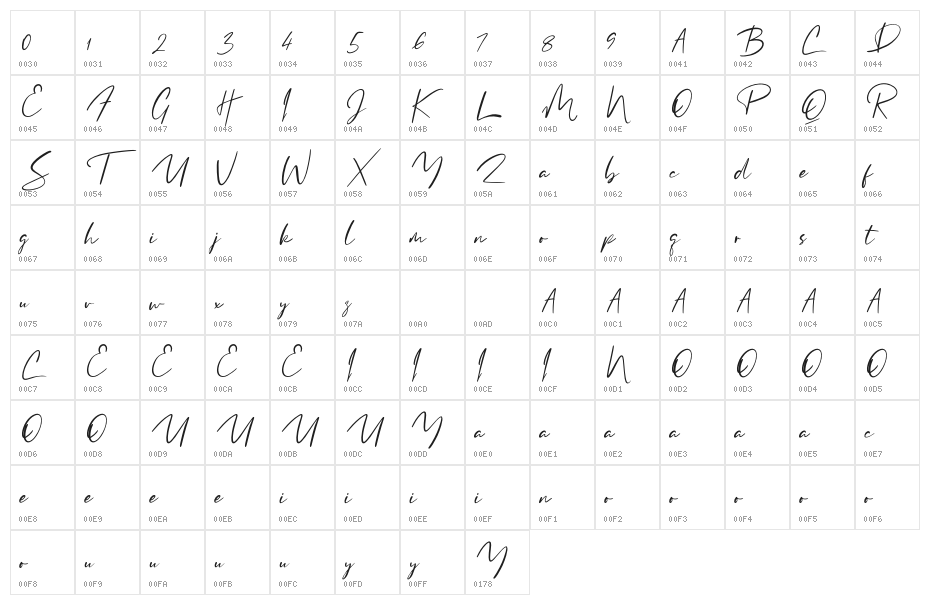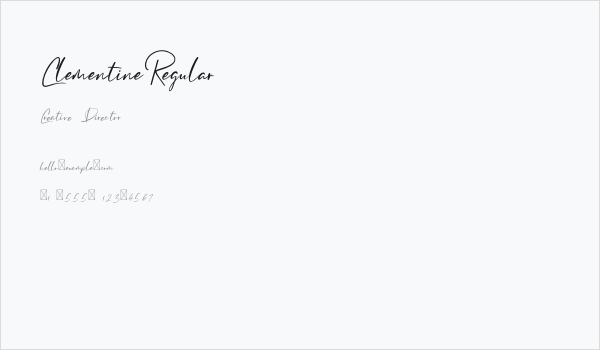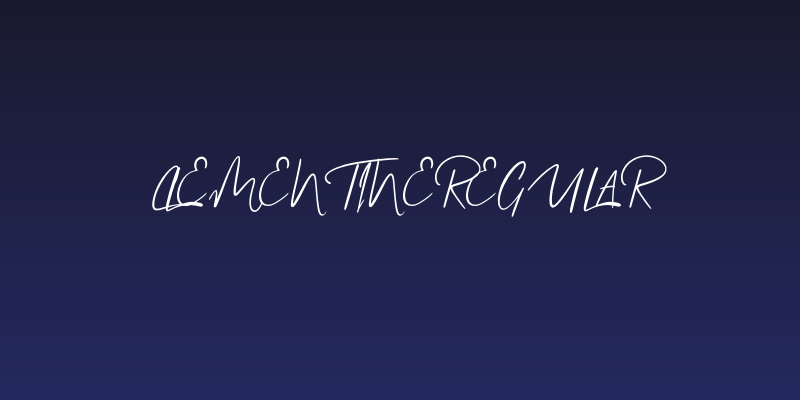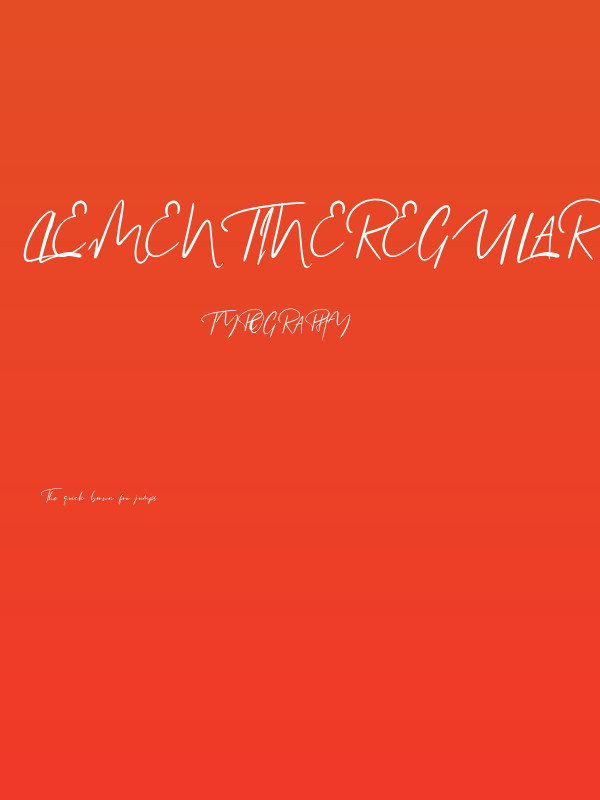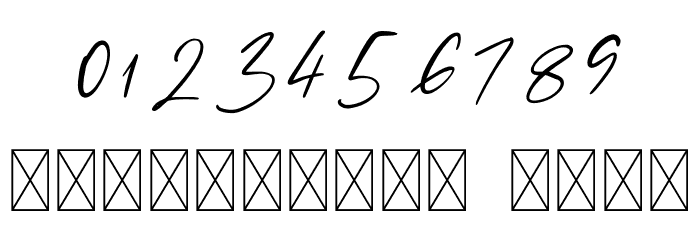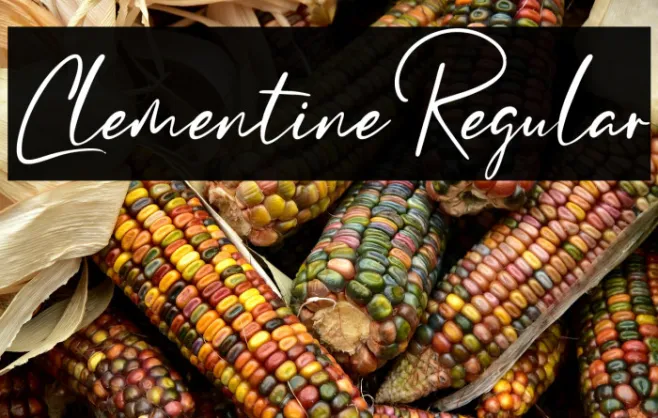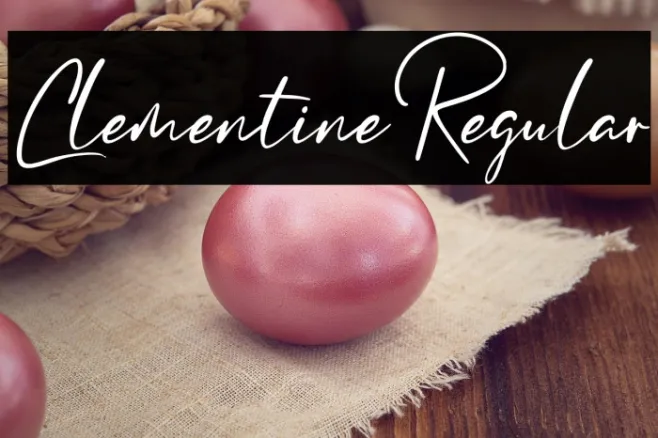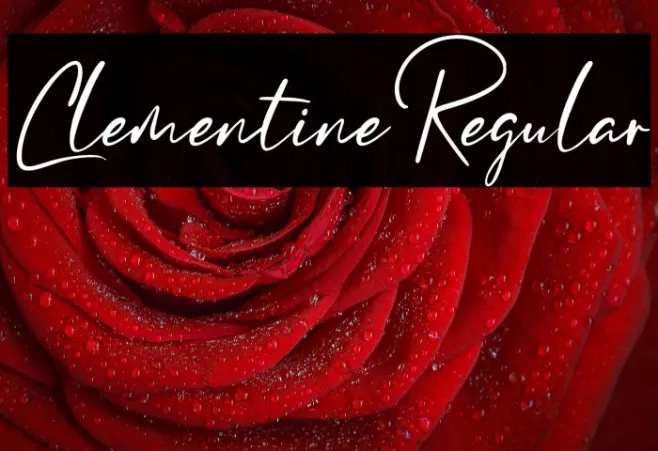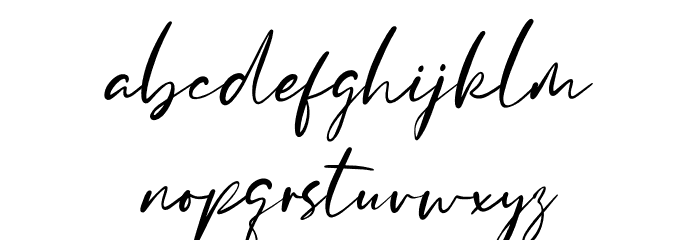
ClementineRegular Font
ClementineRegular Description
This font exhibits a dynamic and fluid handwritten style, characterized by its elegant and flowing strokes. The uppercase letters are bold and expressive, with a slight slant that adds a sense of motion and grace. The lowercase letters maintain a consistent style, offering a smooth and connected appearance that enhances readability. The numerals are well-proportioned and align seamlessly with the overall aesthetic of the font. The special characters are crafted with the same attention to detail, ensuring they complement the rest of the character set. This font's unique style makes it suitable for projects that require a personal and artistic touch.
| Proposed Projects | Ideal for wedding invitations, greeting cards, personal branding, and artistic projects. |